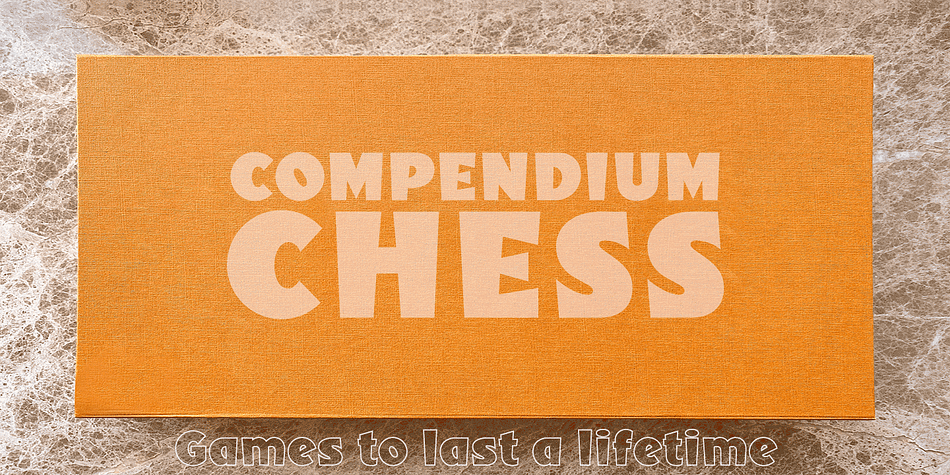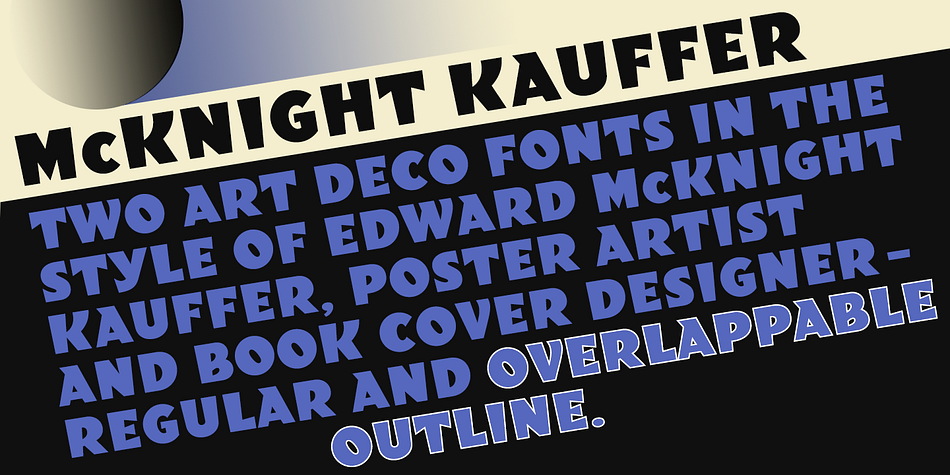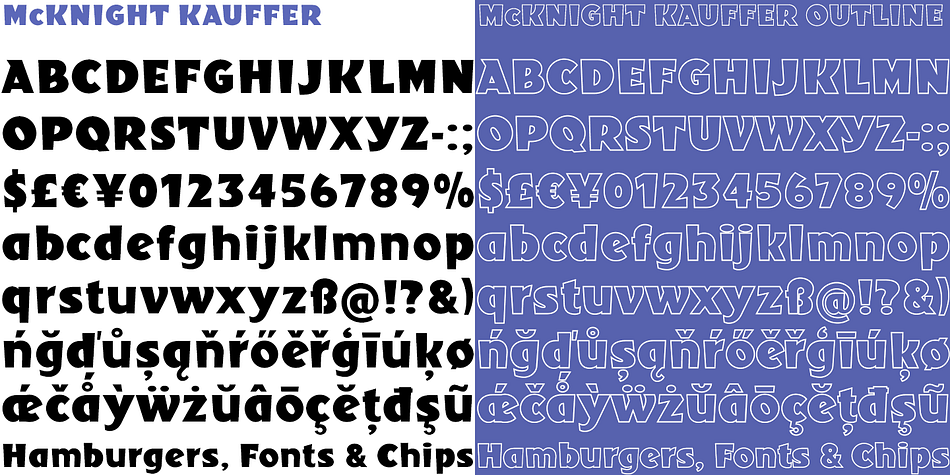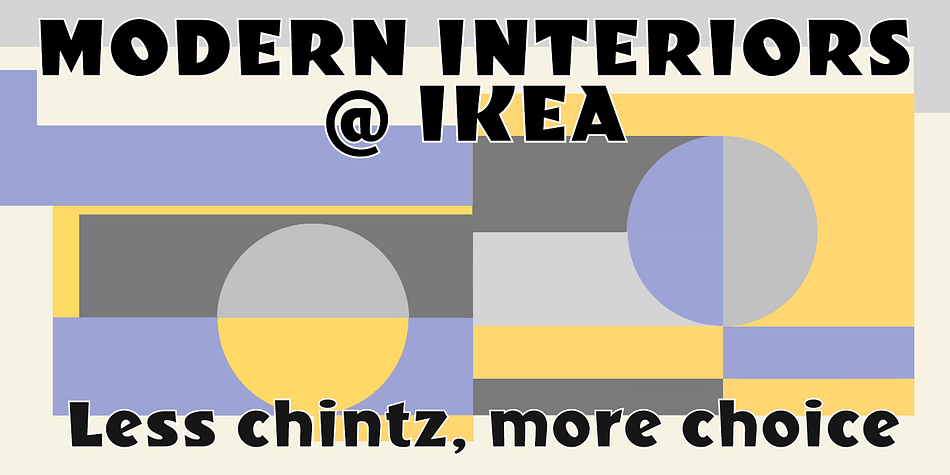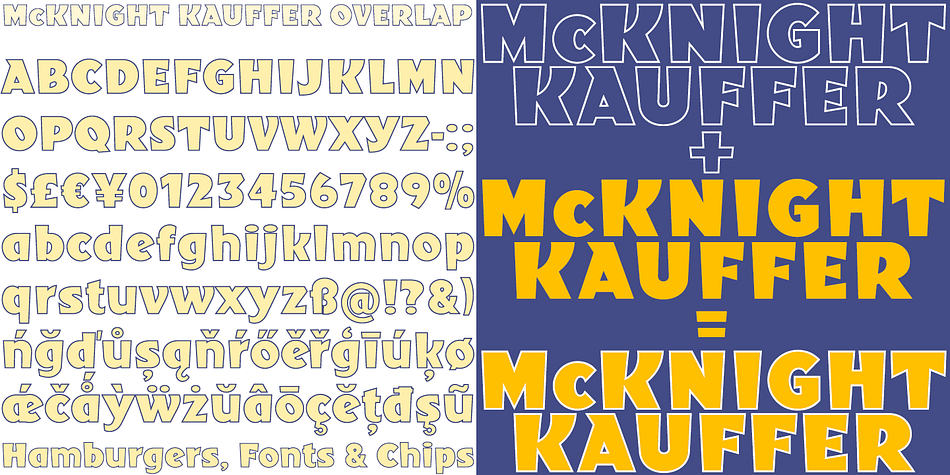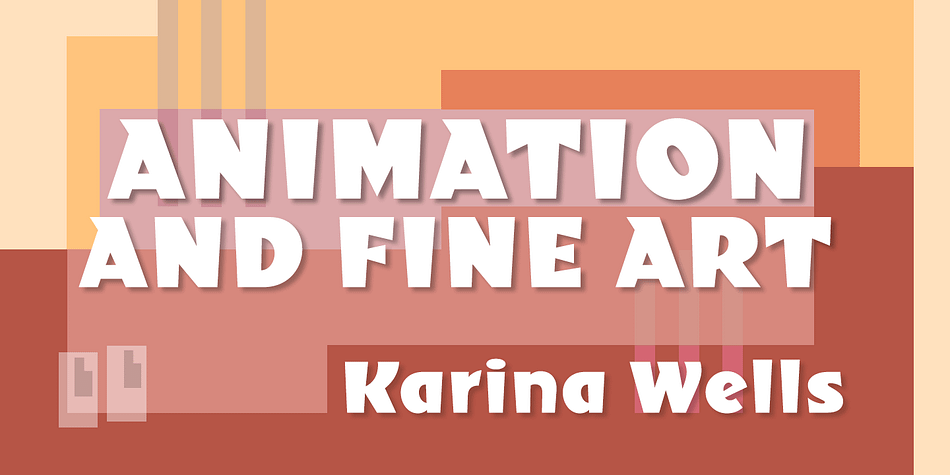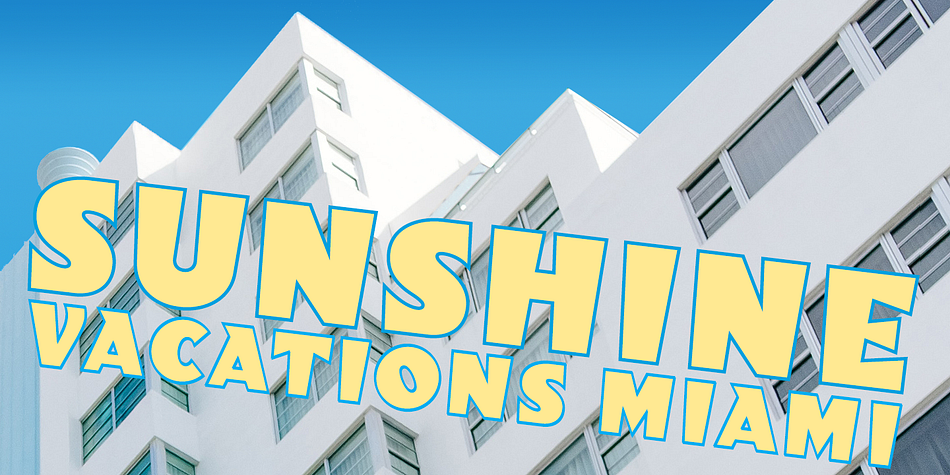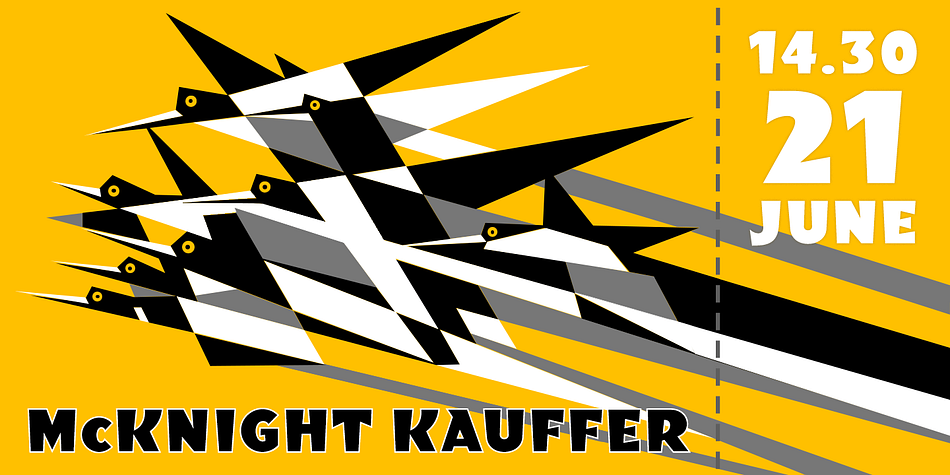
Designed by Keith Bates, McKnight Kauffer is a multiple classification font family. This typeface has two styles and was published by K-Type.
McKnight Kauffer is a casual sans derived from poster and book cover lettering by the American designer, Edward McKnight Kauffer, who mainly worked in England through the 1920s and 1930s.
The two display fonts have a playful, art deco feel, and share spacing and kerning so can be overlapped for bicolor effects.